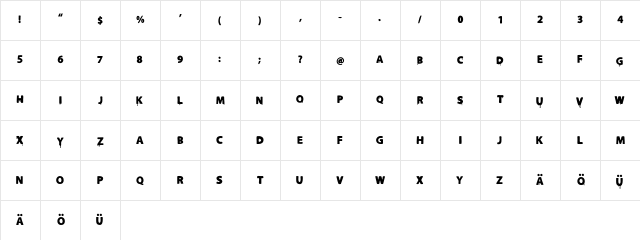
Slutotronic Bold Free Font
Slutotronic Bold
Foundry: Fabian Pfeifhofer (loodydesign.com)
Designer: Fabian Pfeifhofer (loodydesign.com)
Design Context for Slutotronic
Slutotronic is a composed and adaptable typeface that performs quietly and consistently across a wide range of design contexts. Its bold stroke weight gives it real presence on the page.
Who designed the Slutotronic Bold font?